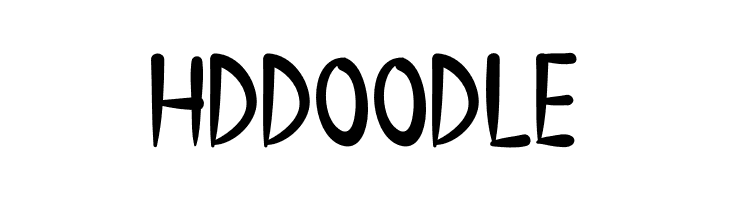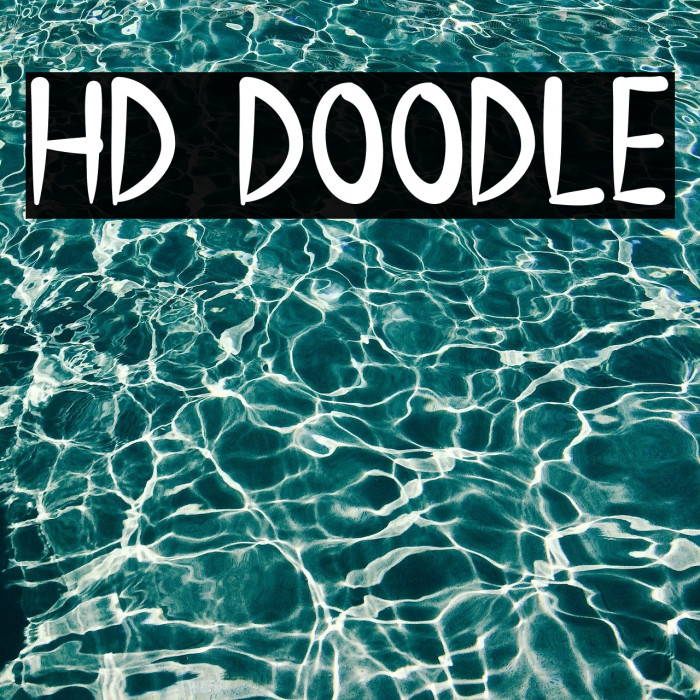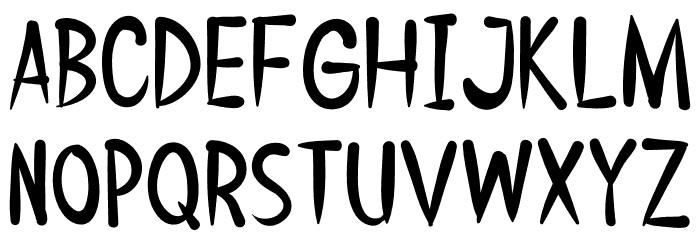
HD DOODLE Font
HD DOODLE Description
This font features a playful and energetic style, characterized by its hand-drawn appearance and irregular strokes. The uppercase letters are bold and slightly tilted, giving a dynamic and informal feel. The lowercase letters maintain the same lively aesthetic, with varying stroke widths that add to the whimsical nature of the font. The overall design is reminiscent of doodles, making it perfect for projects that require a fun and casual touch. The characters are well-spaced, ensuring readability while maintaining the font's unique charm.
A playful, hand-drawn font with an energetic and whimsical style from Comic fonts.
- Proposed Projects: Ideal for children's books, playful branding, casual invitations, and creative posters.